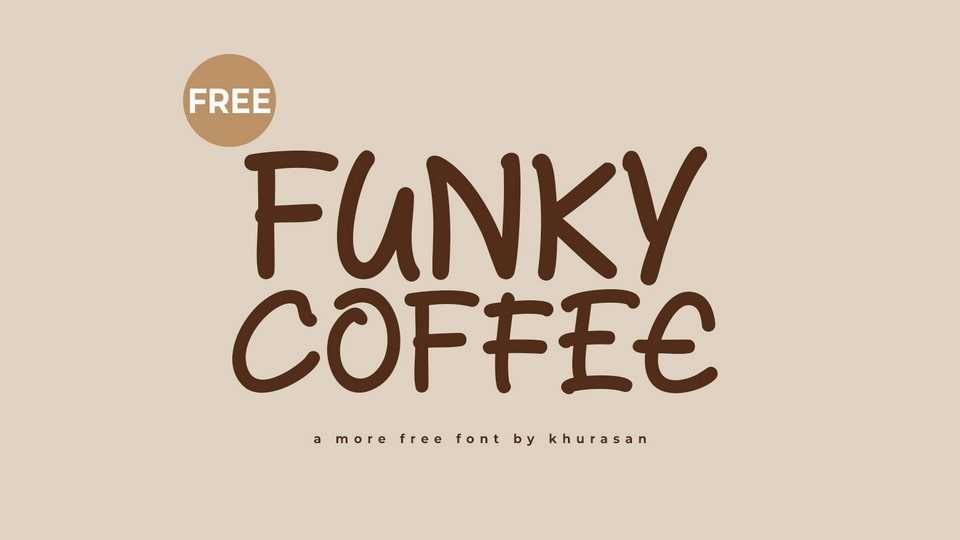
Download Funky Coffee font, a simple and cheerful hand-drawn typeface that radiates playful energy and organic charm. It features free-flowing, whimsical letterforms with quirky curves and joyful twists, creating a vibrant and lively appearance.